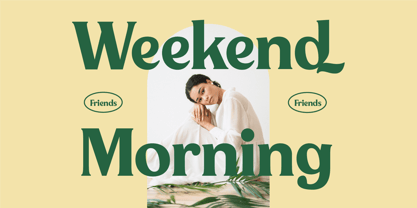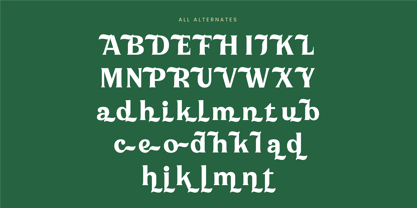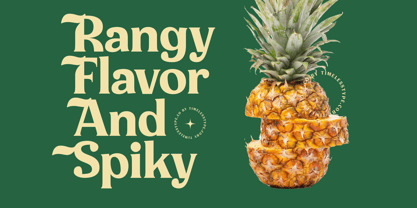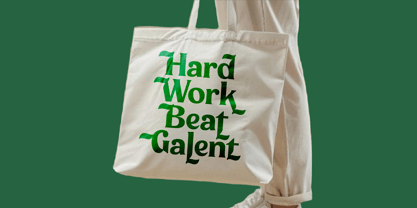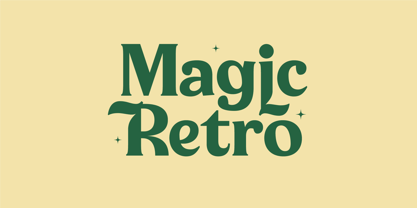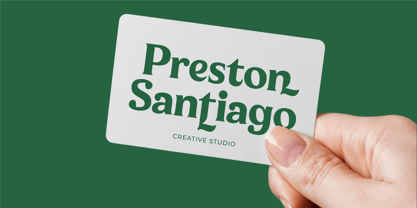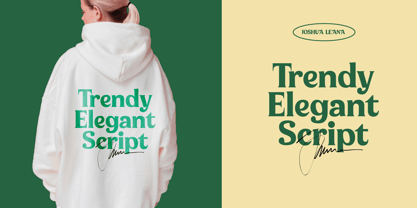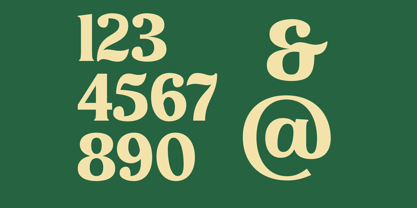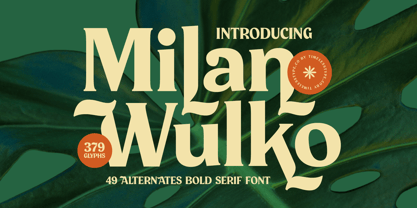
Milan Wulko
by Timelesstype Studio
The Milan Wulko Font Family was designed by Heru Utama Putra and published by Timelesstype Studio. Milan Wulko contains 2 styles and family package options.
Milan Wulko - Alternate Bold Serif Font , from Timelesstype, Suitable for any projects such as: logos, branding projects, homeware designs, product packaging, mugs, quotes, posters, shopping bags, t-shirts, book covers, name card, invitation cards, greeting cards, label, photography, watermark, special events, and all your other luxury and beautiful projects that need a Luxury Serif taste.